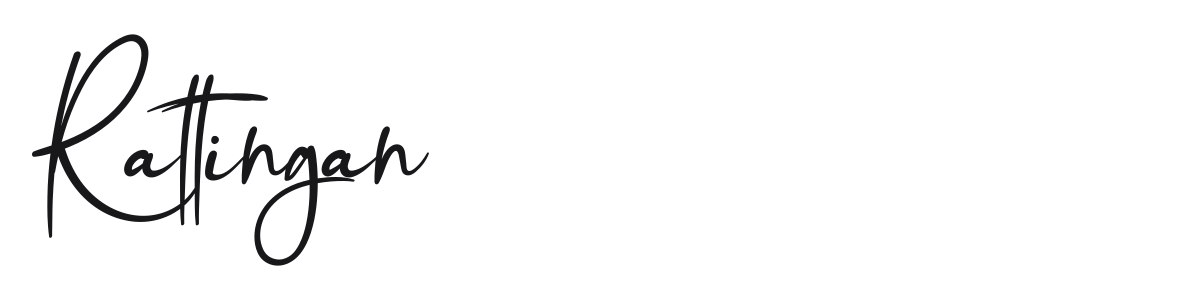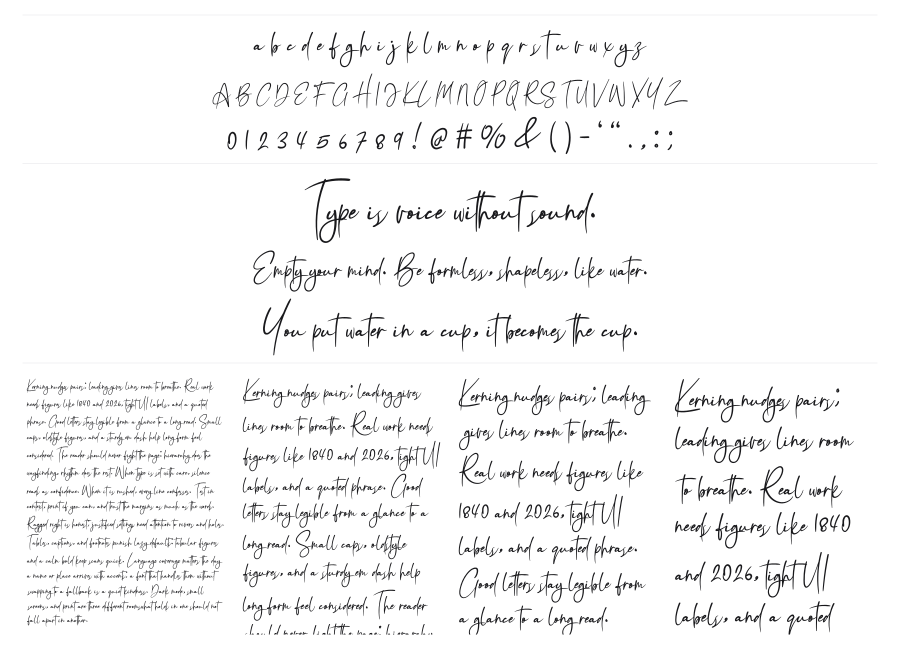
Rattingan
Rattingan is a casual handwritten script with a loose, pen-on-paper feel and thin flowing strokes. The variable baseline and long connecting links give it an authentic, unforced quality that separates it from more polished brush scripts. Works well for branding, packaging, and social content where a personal, approachable tone matters.